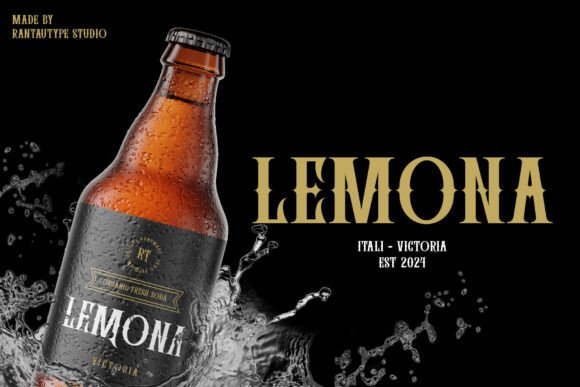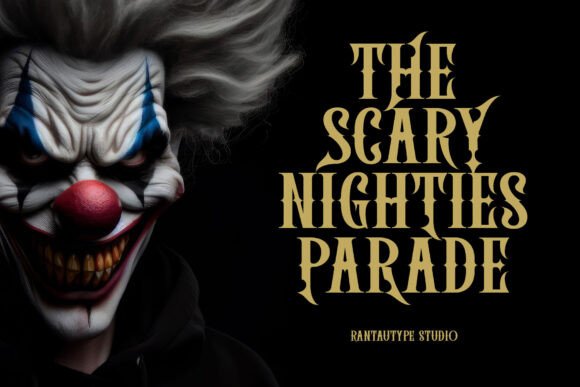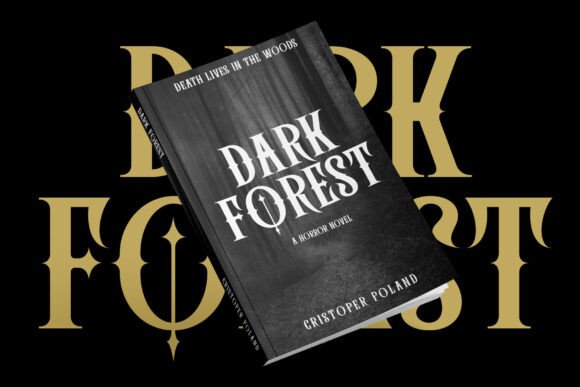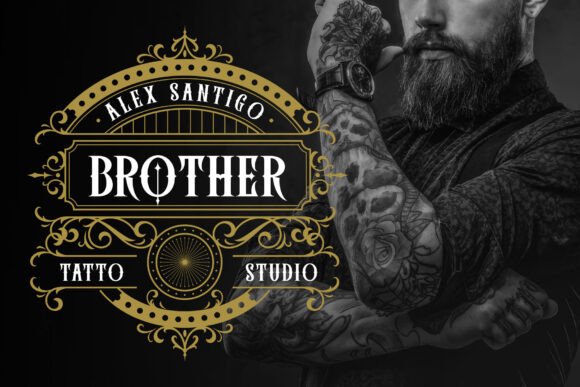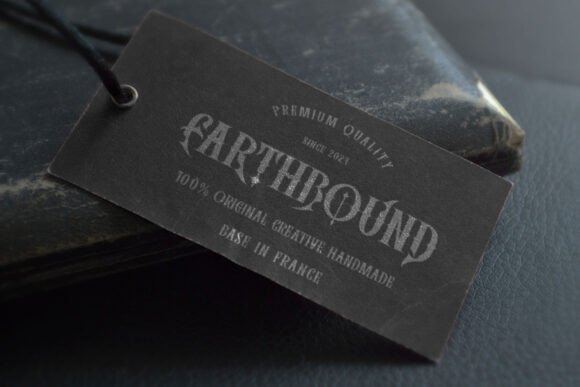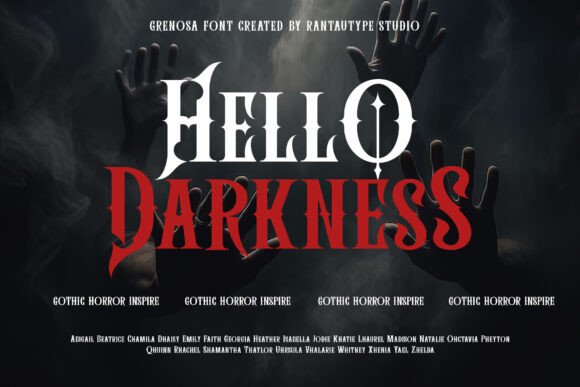
Discover the Dark Elegance of Grenosa Font
As a designer, I’ve had my fair share of frustrating moments while searching for the perfect font. I recall working on a project that required a gothic font with a Victorian twist. The client wanted something that would evoke a sense of mystery and luxury, but I was struggling to find a font that fit the bill. That’s when I stumbled upon Grenosa Font, a game-changer in the world of typography.
A Personal Review of Grenosa Font
Grenosa Font has become a staple in my design toolkit, and for good reason. Here’s what I love about it:
• Unique Gothic Style: Grenosa boasts a distinctive gothic style with a metal and Victorian flair, making it perfect for horror, dark, and fantasy visual designs.
• Versatility: The font comes with stylistic alternates that allow you to mix and match different styles to create a unique look.
• 🔥 Elegant and Sophisticated: Grenosa brings a level of sophistication to gothic typography, making it suitable for a wide range of creative projects.
While Grenosa Font is an excellent choice, it’s not without its quirks:
• 🤔 Glyph Limitations: Some users may find that the font’s glyph library is not as extensive as they’d like, but this is a minor trade-off for its unique style.
• ⚠️ Kerning Issues: As with any font, some users may experience kerning issues, especially when using certain character combinations.
The Story Behind Grenosa Font
Grenosa Font was inspired by the works of 19th-century typographers who sought to create a sense of mystery and luxury through their designs. The font’s creator, a talented typographer, drew inspiration from the ornate details of Victorian architecture and the dark, mystical world of gothic literature. The result is a font that is both elegant and haunting, perfect for designs that require a touch of sophistication and intrigue.
What type of designs is Grenosa Font best suited for? Grenosa Font is perfect for designs that require a gothic or fantasy theme, such as horror, dark, and fantasy visual designs, chic lifestyle designs, logotypes, advertisements, and more.